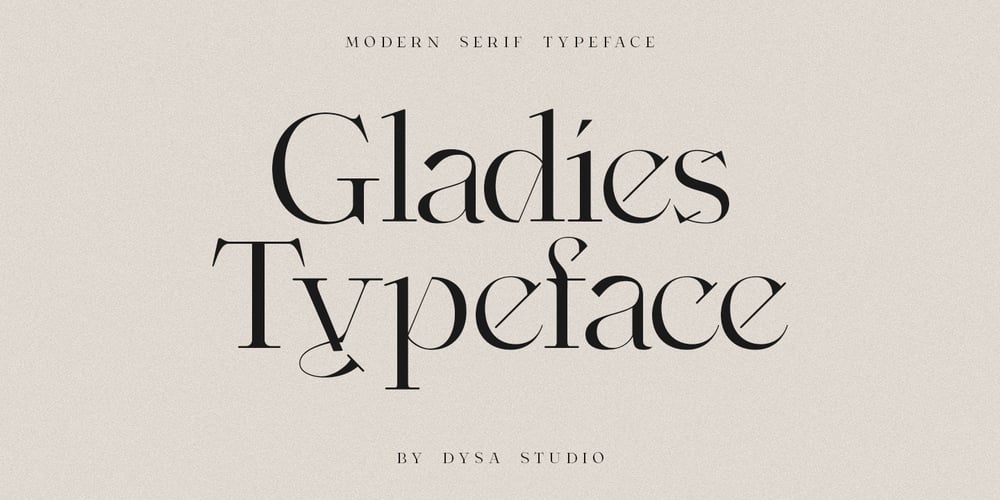
Gladies
Gladies font
Gladies Font Family was designed by Yusup Saputra and published by DYSA Studio. Gladies contains 1 styles and family package options. Gladies is a New Modern Serif Typeface. This another collection of Serif is perfect for your next branding project, excellent for your business. Gladies have a smooth edges, so this font gives an authentic handcrafted feel style.Gladies is perfect choice for people looking for clean, modern, minimalist, elegant, beauty design styles. Suitable for almost any graphic designs such as logo, branding materials, business cards, gift cards, t-shirt, cover, thumbnail, print, poster, photography, quotes .etc